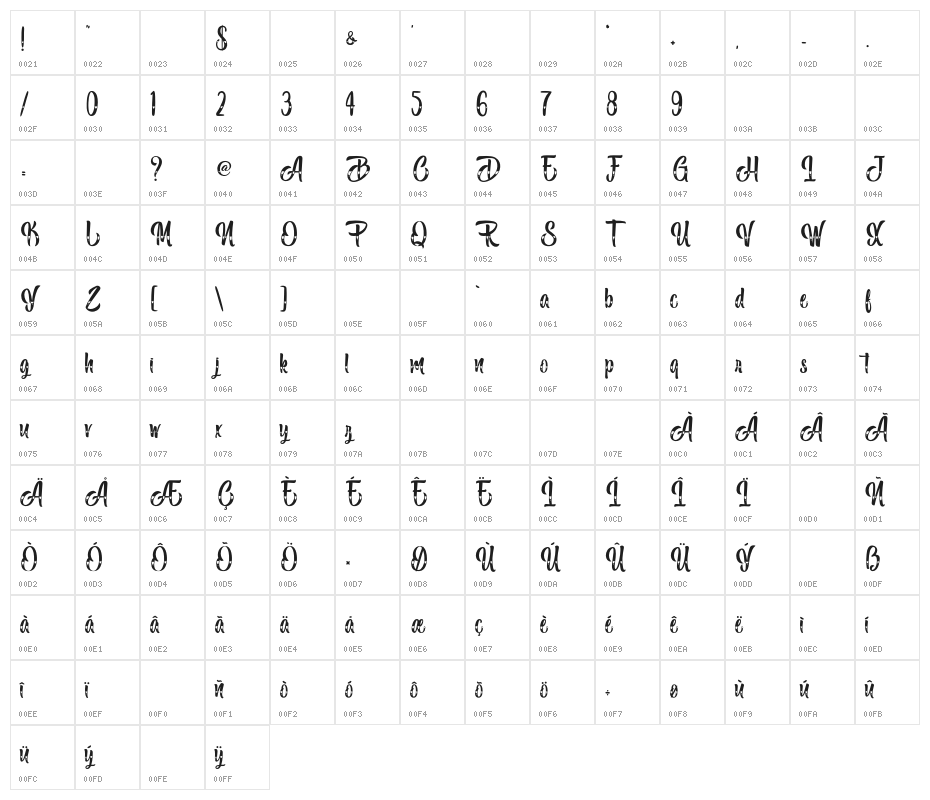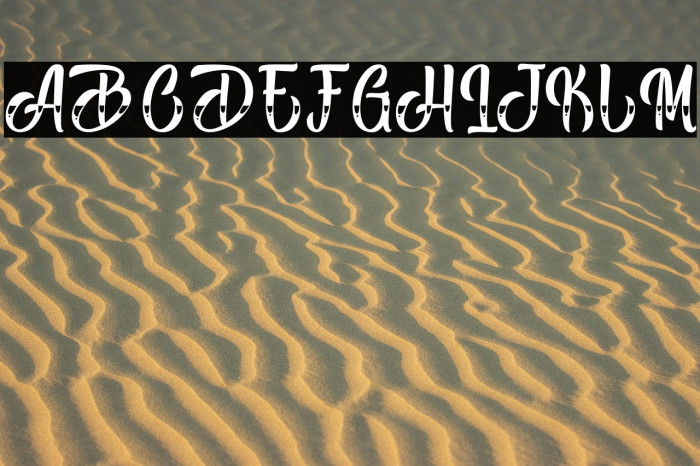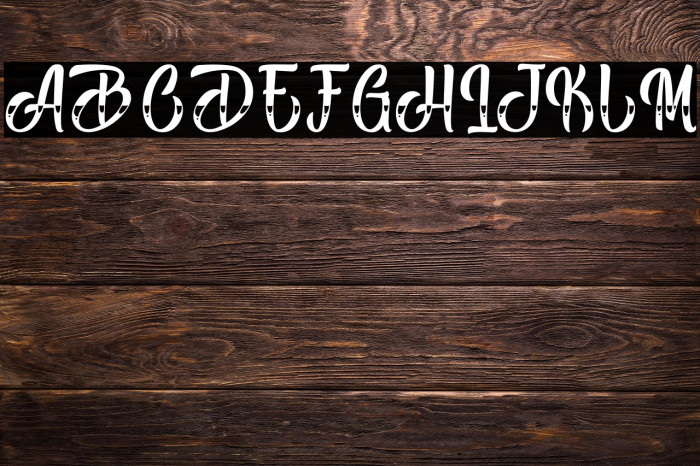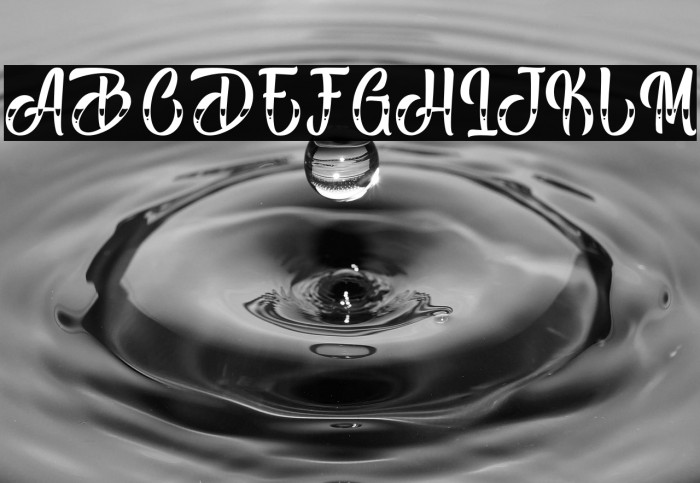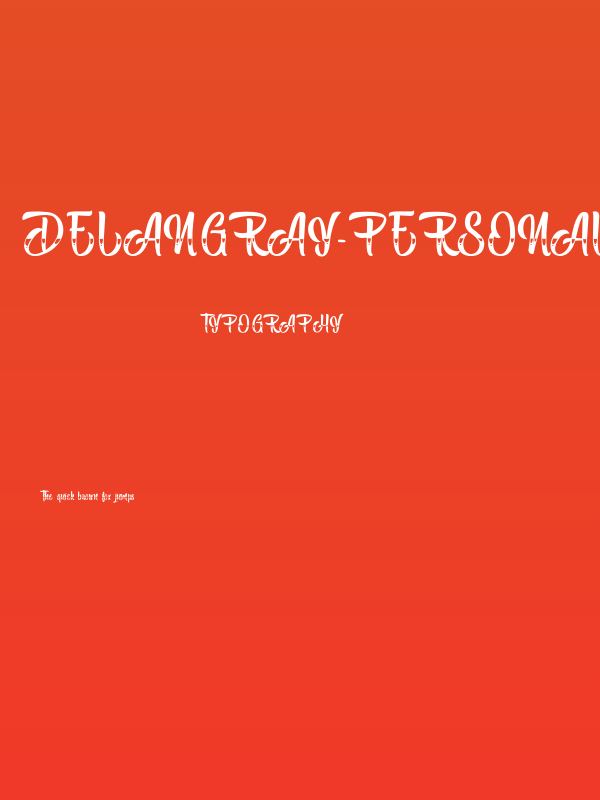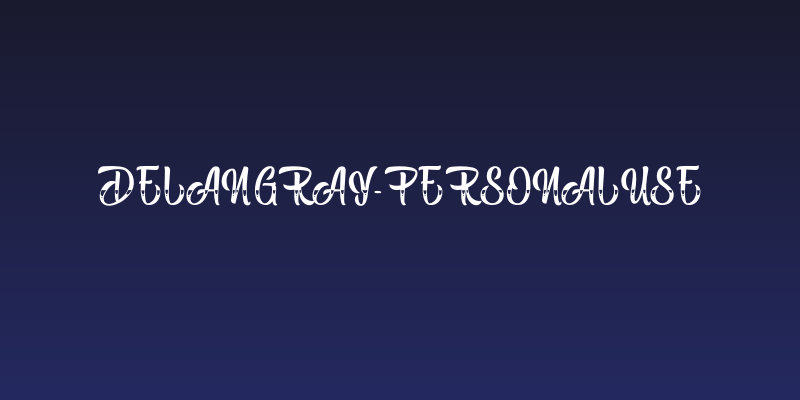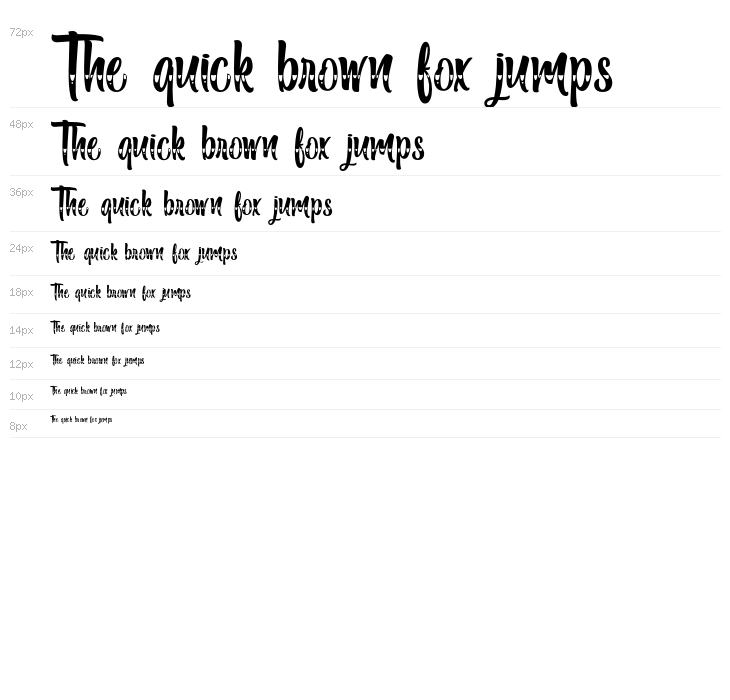
DelanGray-PersonalUse Font
| Caso d'uso | Headlines, Logos, Creative projects |
| Progetti proposti | Ideal for greeting cards, invitations, posters, and branding projects that require a personal and artistic touch. |